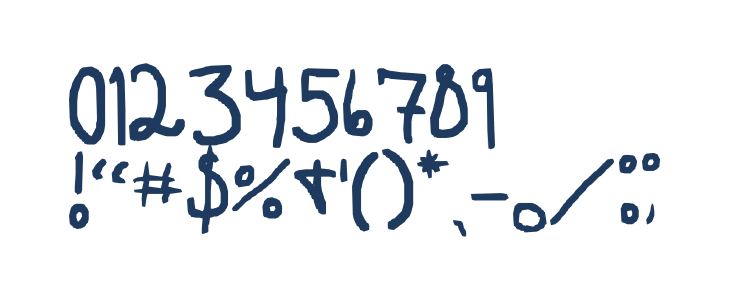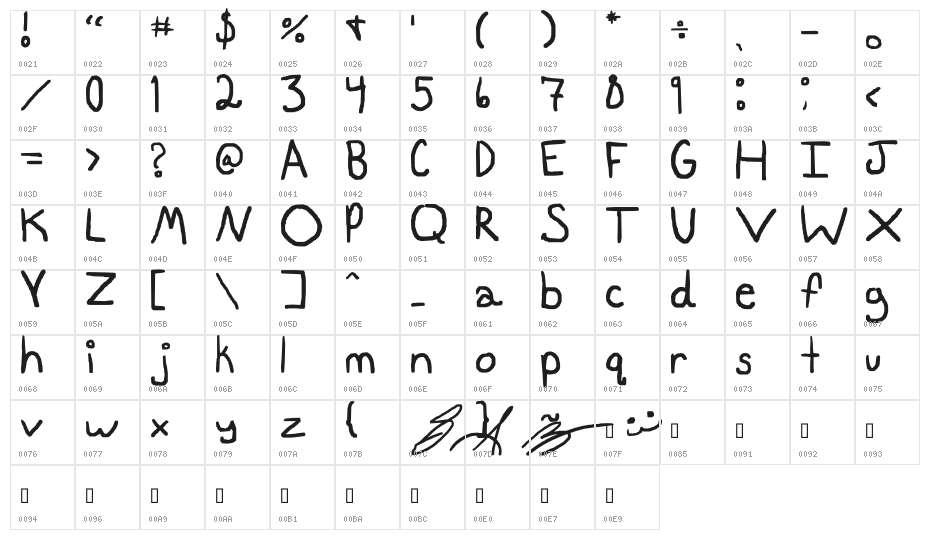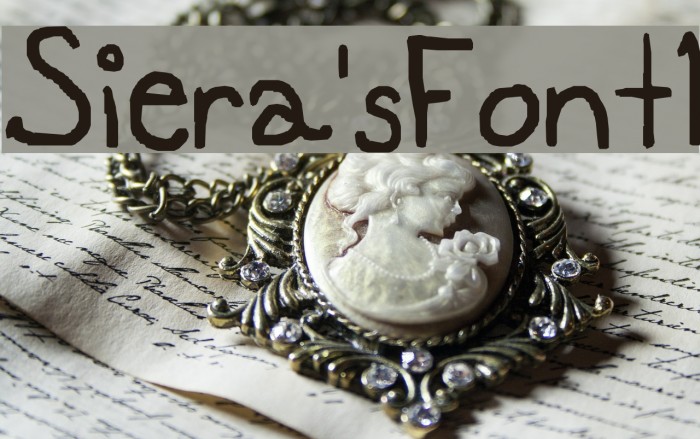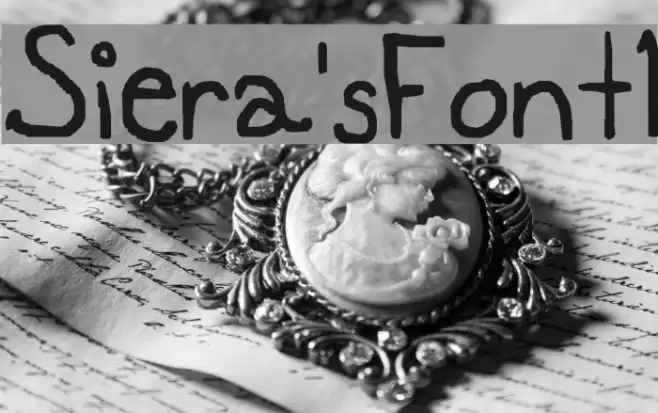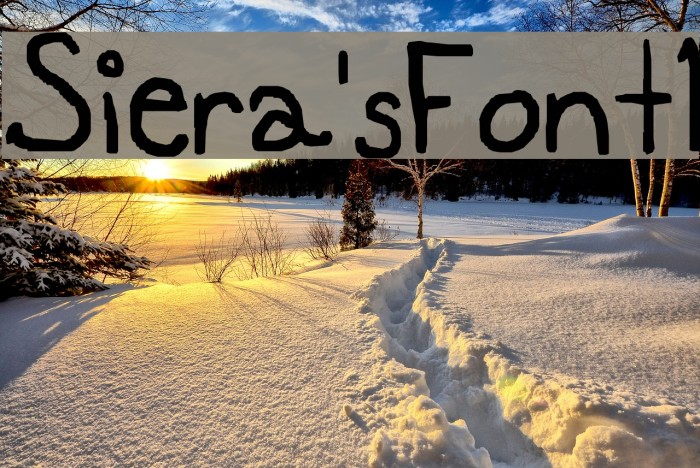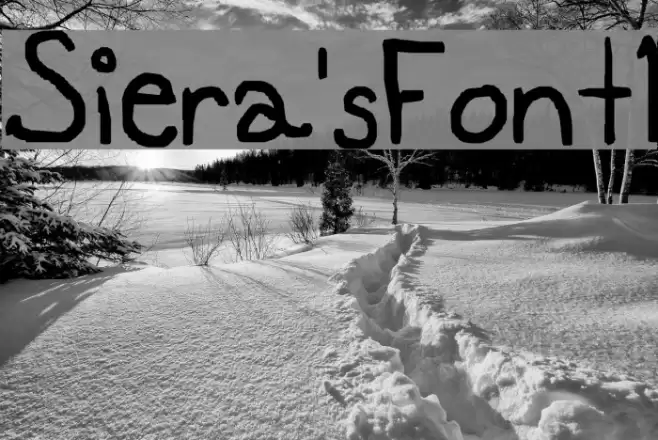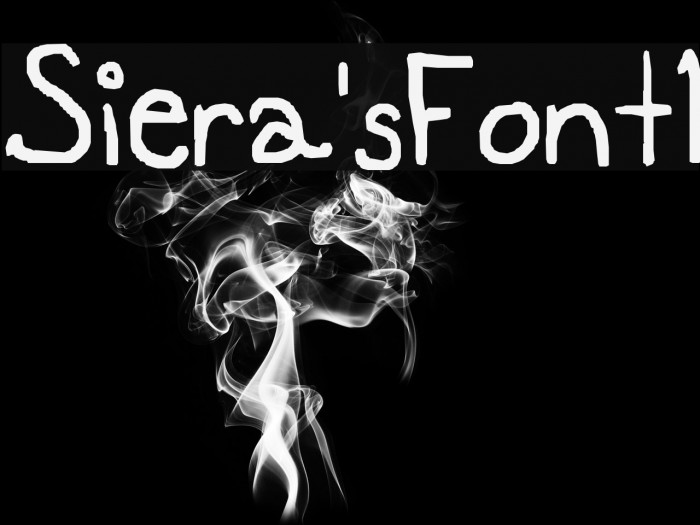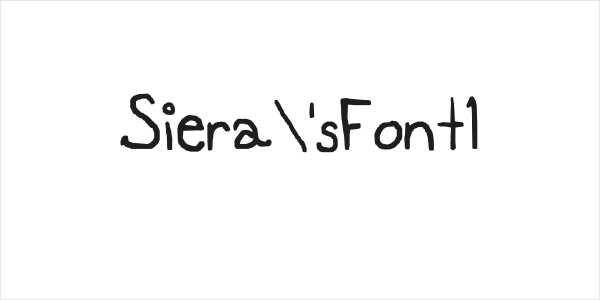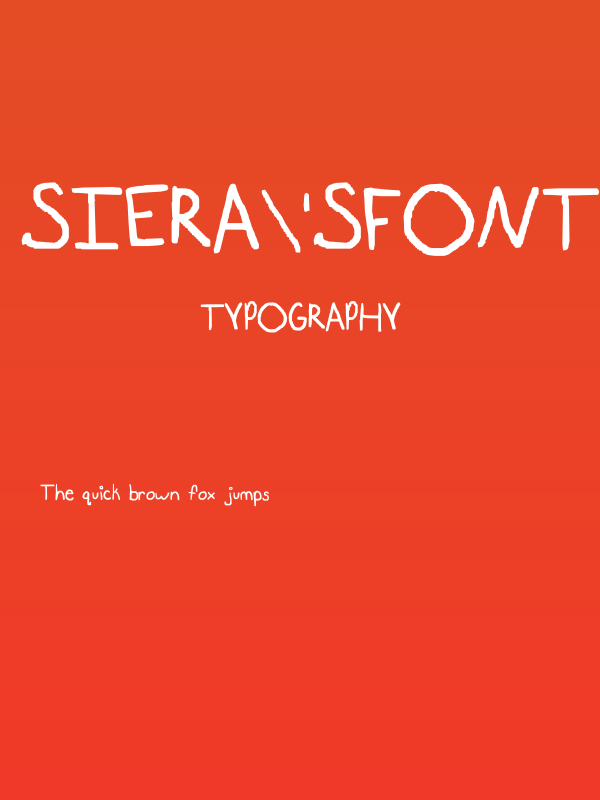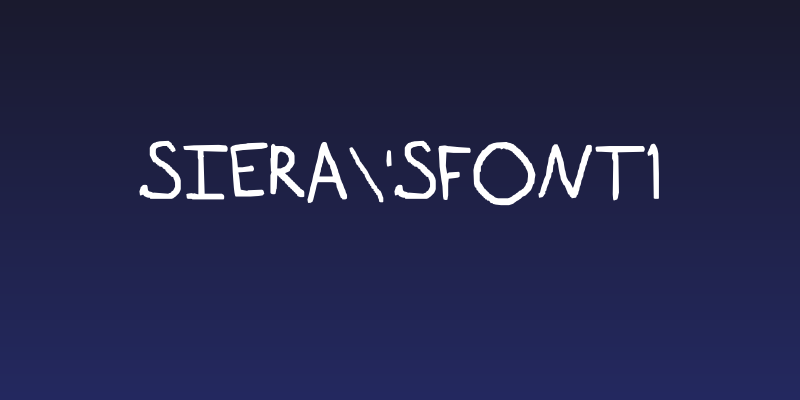
Siera'sFont1 Font
Siera'sFont1 Description
This font features a playful and informal handwritten style, characterized by its uneven strokes and casual appearance. The letters have a slightly irregular shape, giving them a unique and personal touch. The uppercase and lowercase characters maintain a consistent style, with rounded edges and varying stroke widths that add to the font's charm. The numbers and special characters follow the same design principles, ensuring a cohesive look across all elements. This font is perfect for projects that require a friendly and approachable aesthetic, such as children's books, casual invitations, or personal blogs.
| Proposed Projects | Ideal for children's books, casual invitations, personal blogs, and creative projects. |